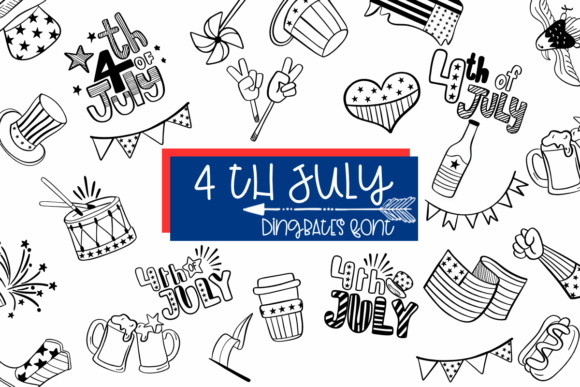
The Ultimate 4th July Font Guide: Elevate Your Creative Projects with this Sketched Dingbats Font
I’ll never forget the summer I spent countless hours searching for the perfect font for a client’s 4th of July-themed wedding invitation. The project required a unique, hand-sketched feel that would capture the essence of a festive American celebration. After scouring the internet and trying out dozens of fonts, I stumbled upon the 4th July Font – a game-changing dingbats font that has since become a staple in my design toolkit.
An Honest Review of 4th July Font
- ✨ Unique, hand-sketched design that adds a touch of personality to any project
- ✅ Extensive character set, including glyphs and stylistic alternates, perfect for creative experimentation
- 👍 Easy to use and navigate, even for those without extensive design experience
- ⚠️ Limited multilingual support, primarily designed for English and Western languages
The Backstory Behind 4th July Font
The 4th July Font was inspired by the classic American celebrations of Independence Day. Designed with a focus on hand-sketched elements and festive details, this font is perfect for creative projects that require a unique, patriotic touch.